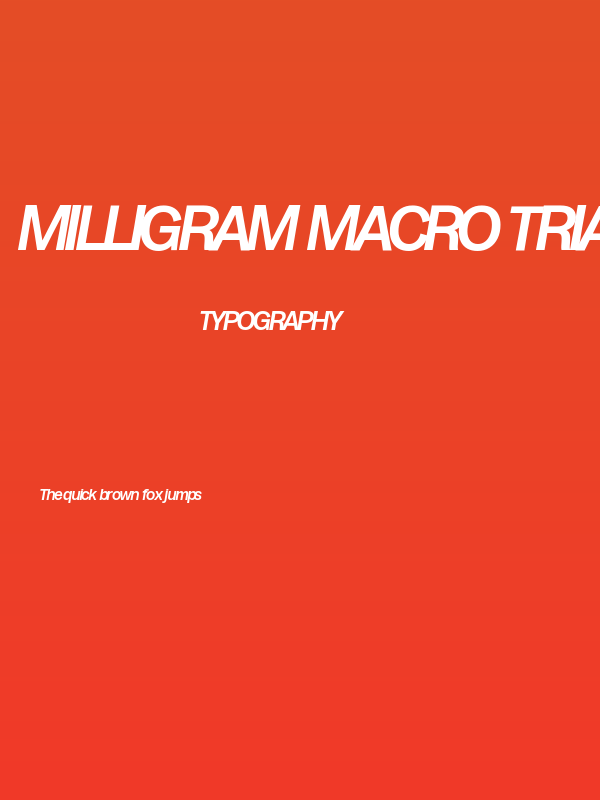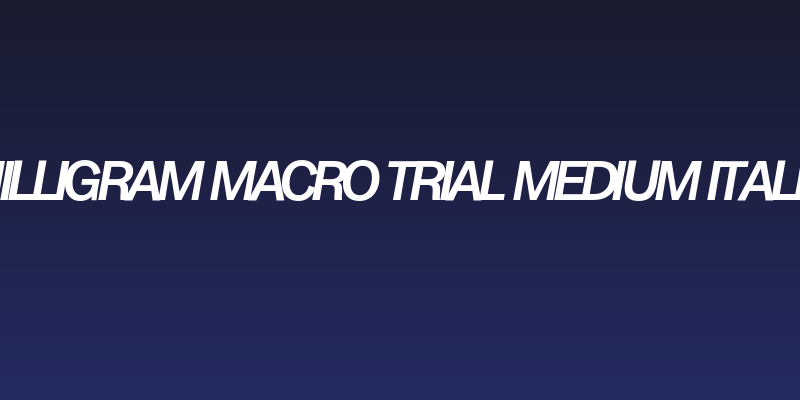
Milligram Macro Trial Medium Italic Font
Milligram Macro Trial Medium Italic Description
This font features a sleek, modern design with a distinct italic slant, giving it a dynamic and forward-moving appearance. The characters are bold and slightly condensed, providing a strong visual impact while maintaining readability. The strokes are consistent in weight, offering a medium contrast that balances elegance with clarity. The overall style is contemporary, making it suitable for a variety of digital and print applications. The character spacing is normal, ensuring legibility across different sizes and contexts.
| Use Case | Headlines, Logos, Advertising |
| Proposed Projects | Ideal for branding, advertising, and editorial design projects that require a modern and dynamic aesthetic. |